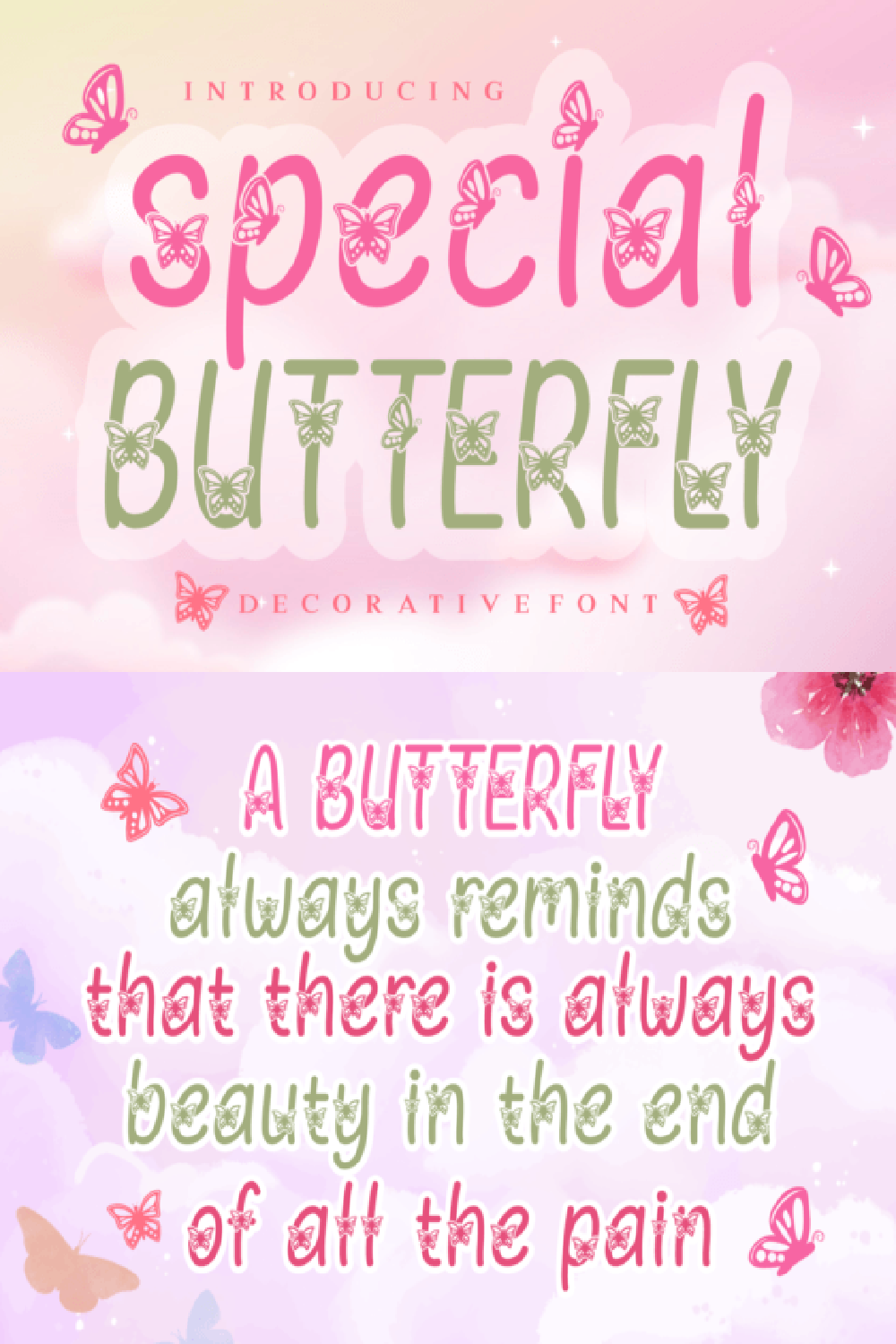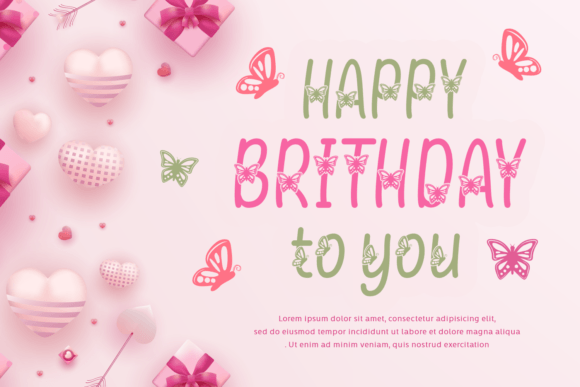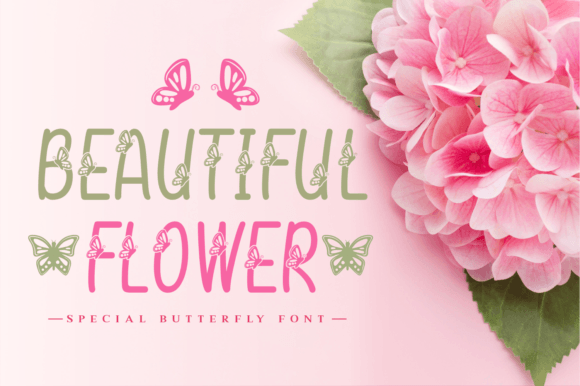
Special Butterfly Font
About the Special Butterfly Font
Presenting Special Butterfly Font, a unique and stylish typeface that will make your work stand out. Special Butterfly is a sweet and adorable decorative font. Its lovely, romantic, and delicate characters are perfect for Mother’s Day cards, Valentine’s Day gifts, mugs, girly stickers, and more!
Special Butterfly Font Usage Examples